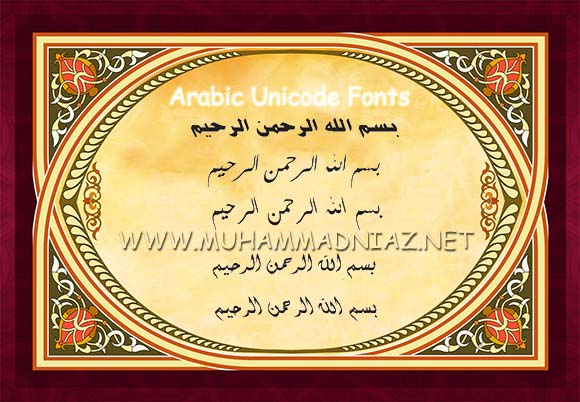
Arabic Unicode Fonts is a cursive writing system used for the Arabic language. Over the centuries it has been adapted to write a large number of other languages. Some of these languages employ additional or modified letters. Specific font pages are provided for those that differ significantly: Kurdish, Pashto, Persian, Sindhi, Uighur, and Urdu. The following lists of Middle Eastern Unicode fonts are probably not comprehensive, they are just the ones that I have acquired with various operating systems and applications,
Arabic Fonts list are:
KacstArt
KacstBook
KacstDecorative
KacstDigital
KacstFarsi
KacstLetter
KacstNaskh
KacstOffice
KacstPen
KacstPoster
KacstQurn
KacstScreen
KacstTitle
KacstTitleL